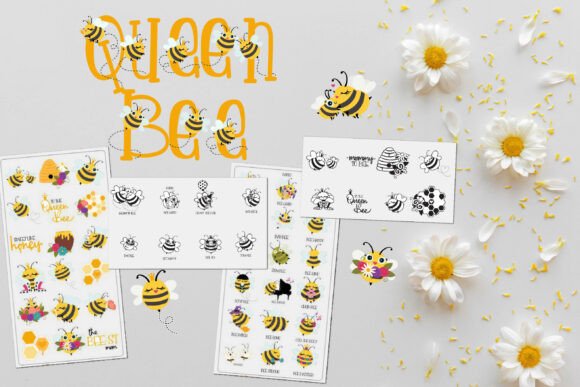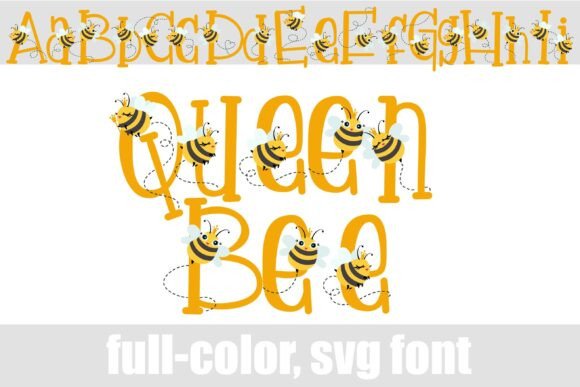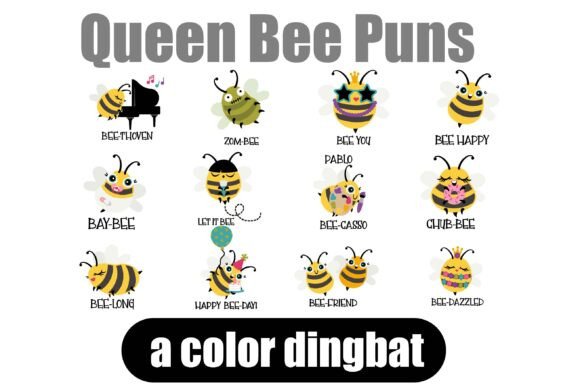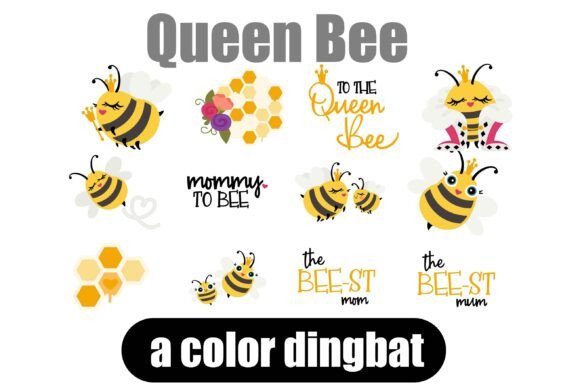
Queen Bee Font: A Cute & Playful Font with Fun Dingbats for Cricut
About the Queen Bee Font
Meet Queen Bee Font, a stunning font that brings a touch of elegance and professionalism to any design. Queen Bee! This font bundle features bees, bee puns, and the queen bee, herself. This bundle features 1 full-color font, with an alt case of additional colors of each letter that you can access through your system or Silhouette’s glyph map, 2 full-color dingbats, and 2 regular dingbats.